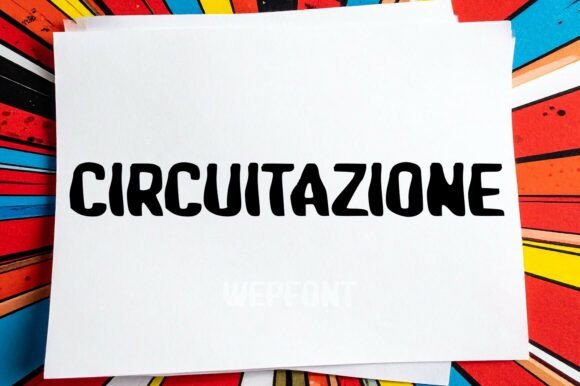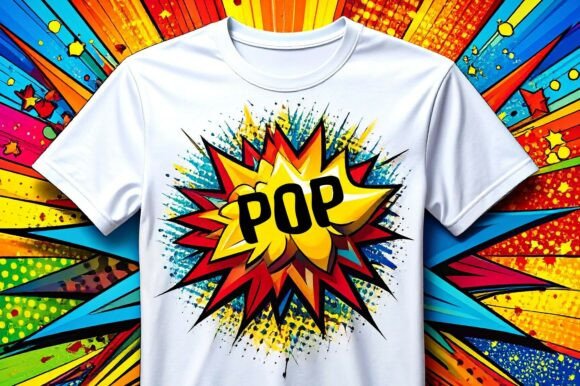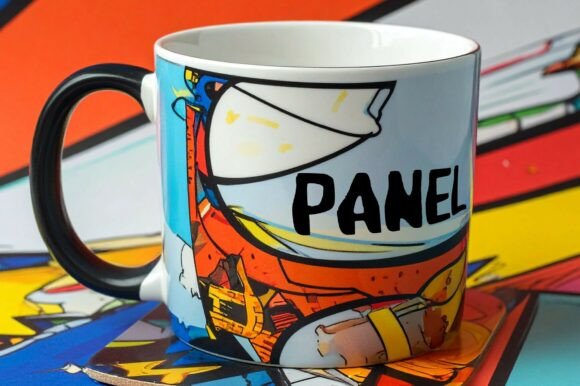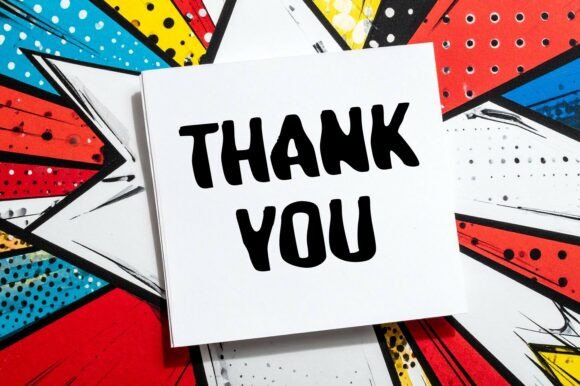
Introduction to Circuitazione Font Font
Fonts play a crucial role in design, and the Circuitazione Font font is a typeface that brings both character and versatility to any project. Whether you’re working on a branding project, a website, or a print design, the Circuitazione Font font offers a unique style that can elevate your work.
Meet “CIRCUITAZIONE,” a dynamic amalgamation of vibrant action and nostalgic comic book allure.
This display font channels the effervescent essence of vintage pop art, presenting bold, prominent letterforms bouncing with energy and dynamism Crafted to captivate, “CIRCUITAZIONE” stands tall, making your messages soar straight off the page.
Key Features of Circuitazione Font Font
Why Choose Circuitazione Font Font?
The Circuitazione Font font is more than just a typeface – it’s a design tool that helps you communicate your message with style and clarity. Its unique character set and versatile design make it suitable for a wide range of applications, from elegant invitations to bold headlines.
With its carefully crafted letterforms and balanced proportions, the Circuitazione Font font ensures readability and visual appeal across all mediums.
What makes Circuitazione Font font special?
The Circuitazione Font font stands out with its unique design, exceptional readability, and versatility across various design applications.